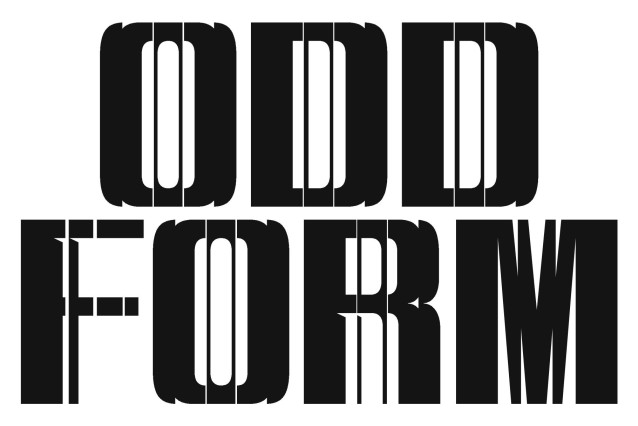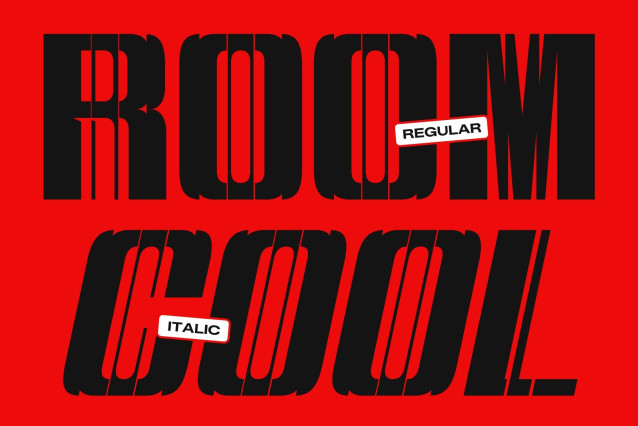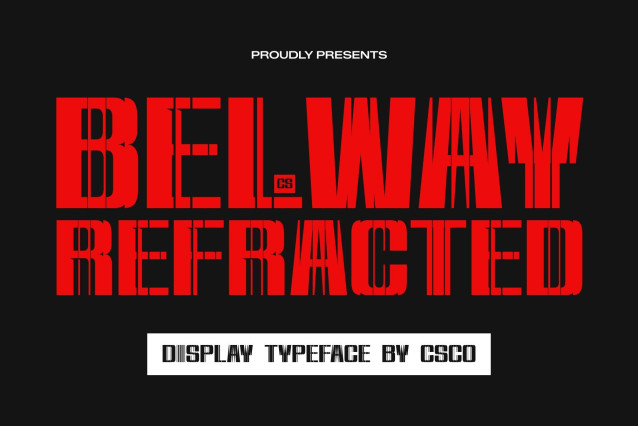
CS Belway Refracted Font
CS Belway Refracted – Condensed Sans Serif Font: Precision Engineering with Futuristic Light Distortion
Compact Structure Built for Maximum Visual Impact
This is a modern condensed sans serif font designed to deliver strong visual authority within limited space. Its narrow proportions and tightly engineered letterforms allow text to appear bold, structured, and highly efficient. This compact construction makes it ideal for layouts where space is limited but visual strength is essential.
Refracted Geometry for Dynamic Futuristic Energy
What defines this font is its distinctive refracted styling, where characters are interrupted by sharp geometric slices and light-inspired distortions. These subtle fractures create a glitch-like rhythm that enhances visual tension and modernity. The effect introduces movement and digital energy while preserving the font’s condensed clarity, resulting in a striking balance between precision and experimentation.